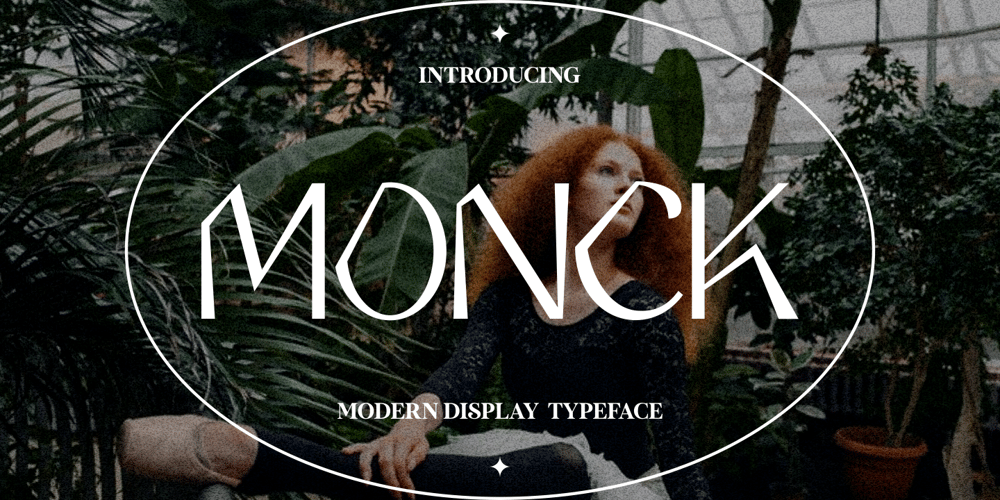
Monck Font Family was designed by Putra Novembria Candra Kusuma and published by Putracetol. Monck contains 1 styles and family package options. Introducing Monck, a modern display font that combines the best of modern typography and classic serif styles. With its sleek design and unique lettering options, Monck is perfect for a wide range of design projects. Whether you’re creating logos, posters, quotes, or social media graphics, Monck offers a plethora of alternates and end swashes through its OpenType features.Monck comes with three different file formats – otf, ttf, and woff – making it compatible with various design software programs such as Adobe Illustrator CS, Adobe Photoshop CC, Adobe InDesign, and Corel Draw. This means you can easily access and utilize the alternate glyphs in Monck to create eye-catching lettering compositions.The OpenType features in Monck allow you to access uppercase and lowercase letters, as well as alternates and ligatures, giving you endless possibilities for creative combinations. Additionally, Monck supports multiple languages, making it a versatile choice for designers around the world.In your zip package, you’ll find the Monck font files in otf, ttf, and woff formats, providing flexibility for different design projects. The font includes uppercase and lowercase letters, numerals, punctuation, and symbols, ensuring that you have all the tools you need to create stunning designs.Monck is a versatile font that can be used for various design purposes, such as logotypes, headings, covers, posters, product packaging, headers, merchandise, social media graphics, greeting cards, and more. Its modern and classic fusion style adds a unique and contemporary touch to your designs, making them stand out in any context.In summary, Monck is a modern display font that offers a wide range of alternates and ligatures through its OpenType features, making it a powerful tool for creative lettering compositions. With its multilingual support and compatibility with popular design software, Monck is a must-have font for any designer looking to add a touch of modernity and versatility to their projects. So why wait? Get Monck now and start creating stunning designs with ease!